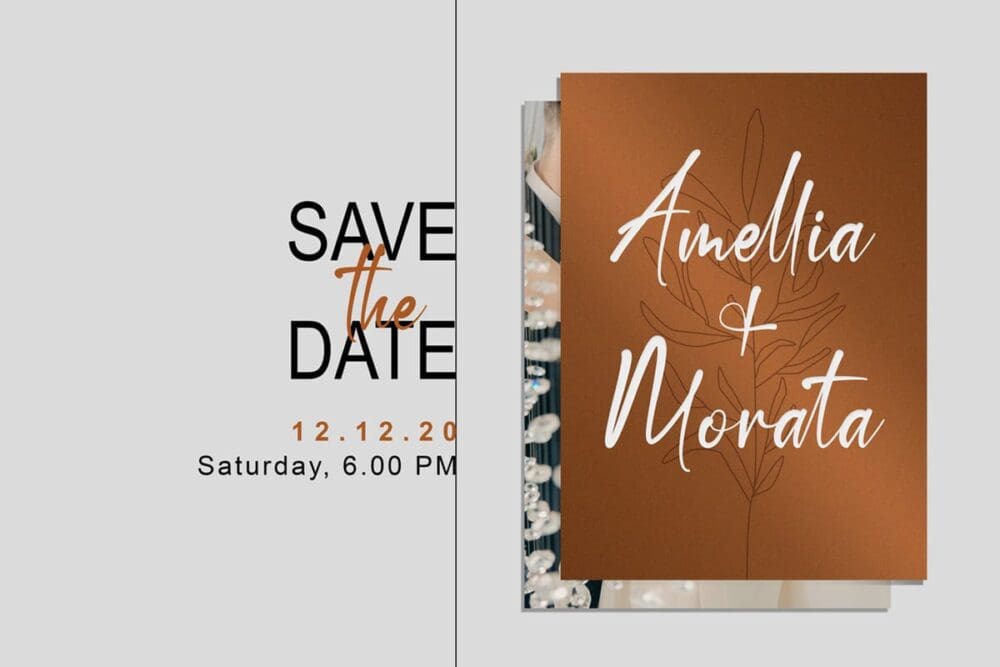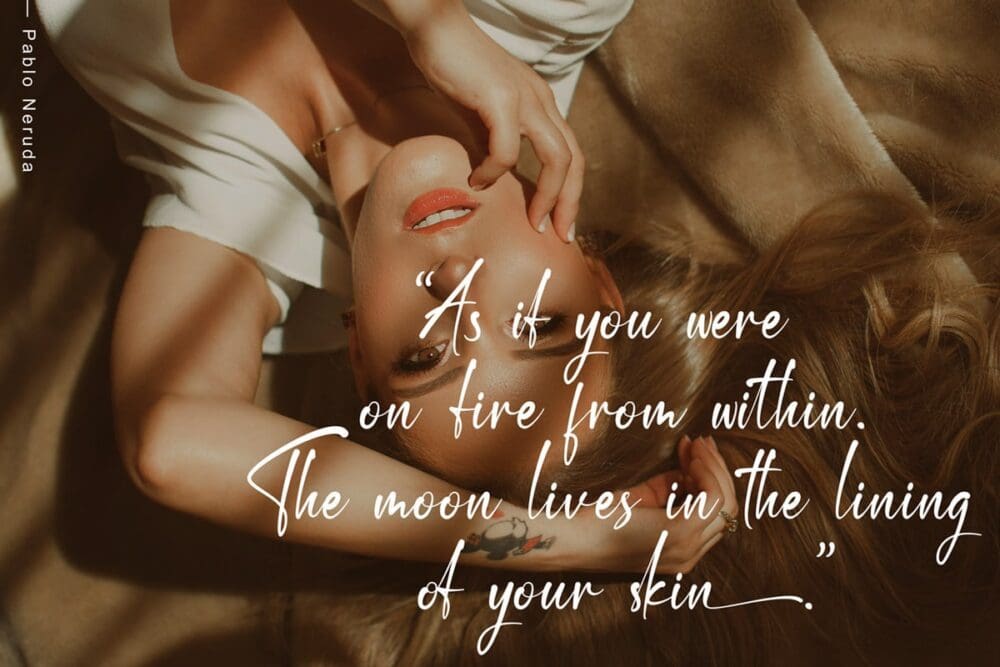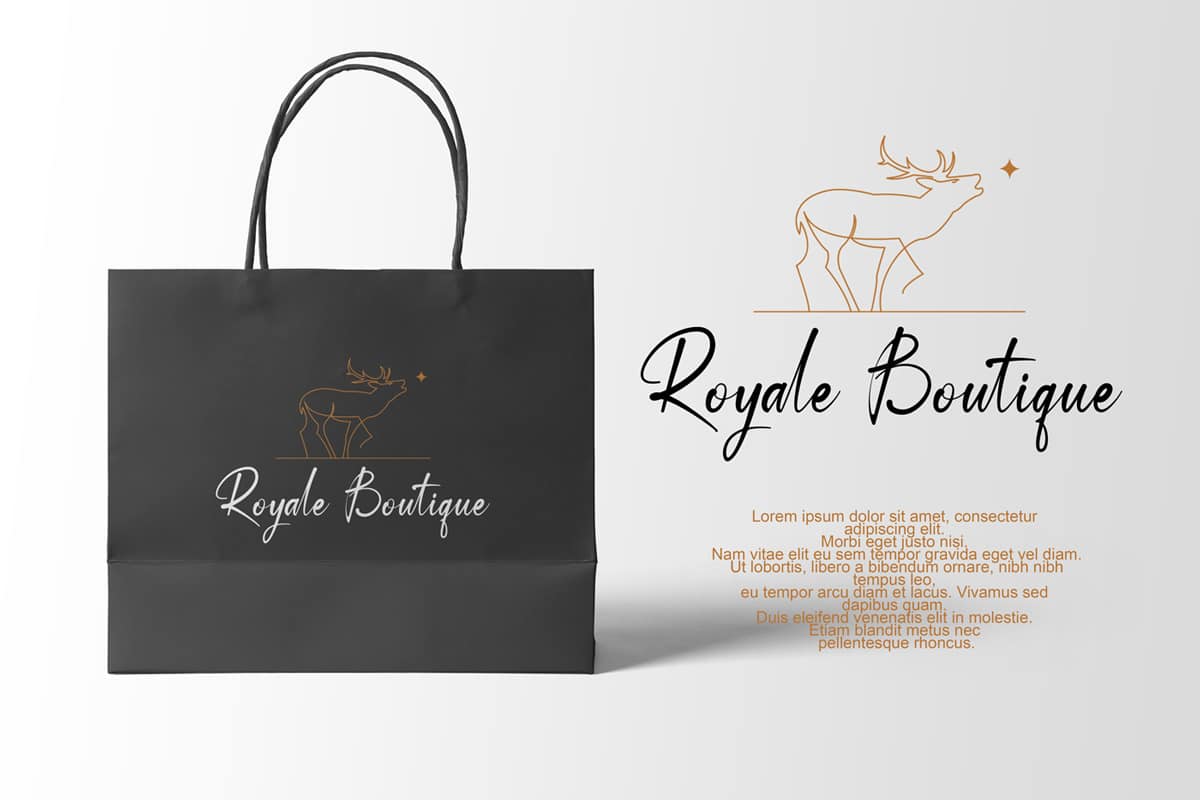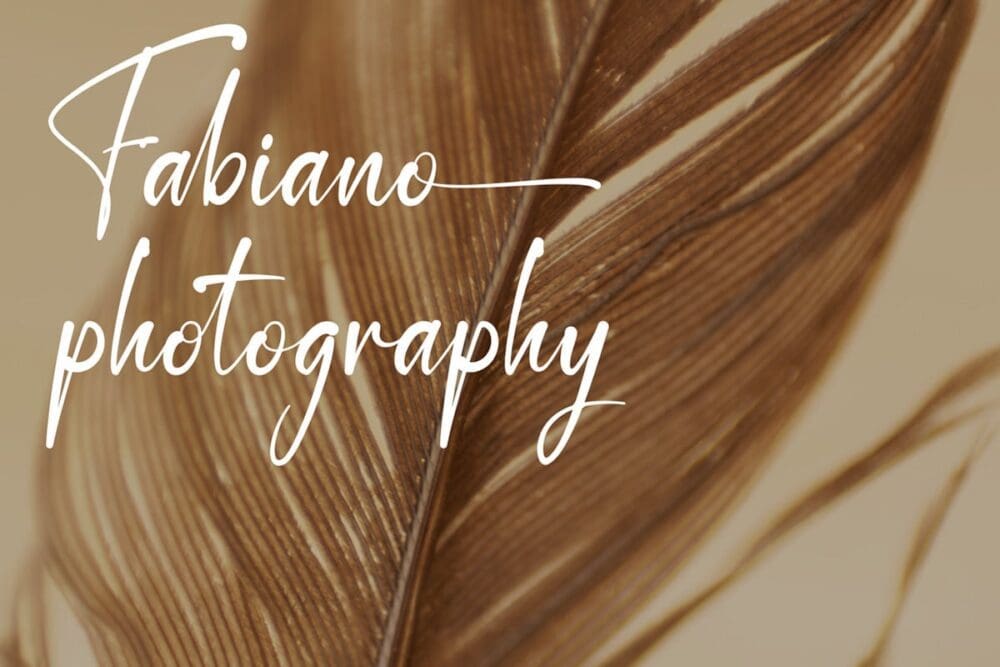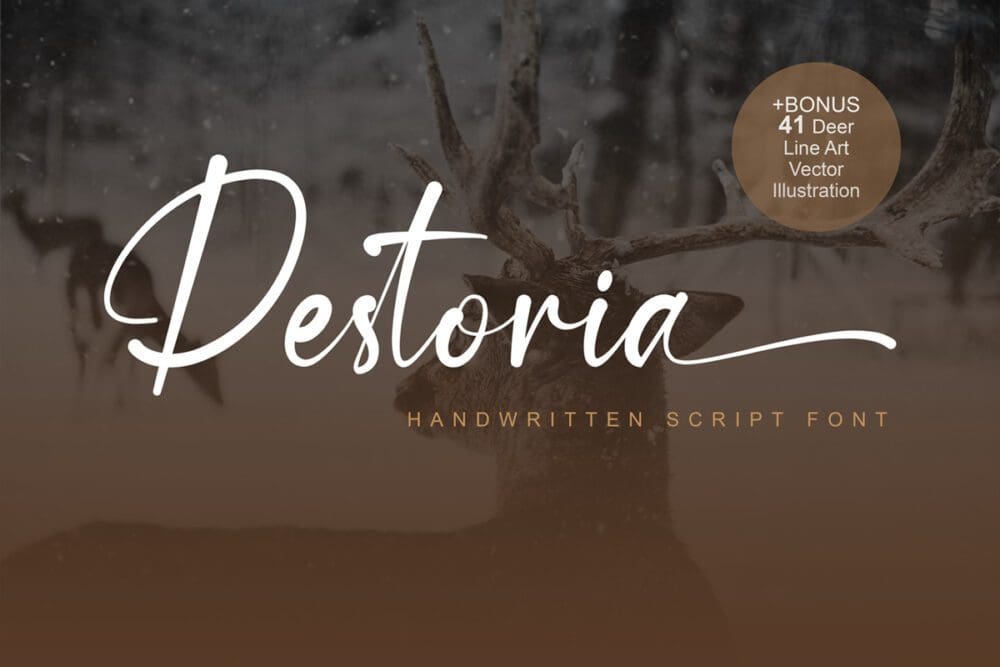
Destoria Font
Destoria is a beautiful handwritten script font. It’s the perfect font for wedding invitations, stationery, photography, social media posts, product packaging, greeting cards, and much more!